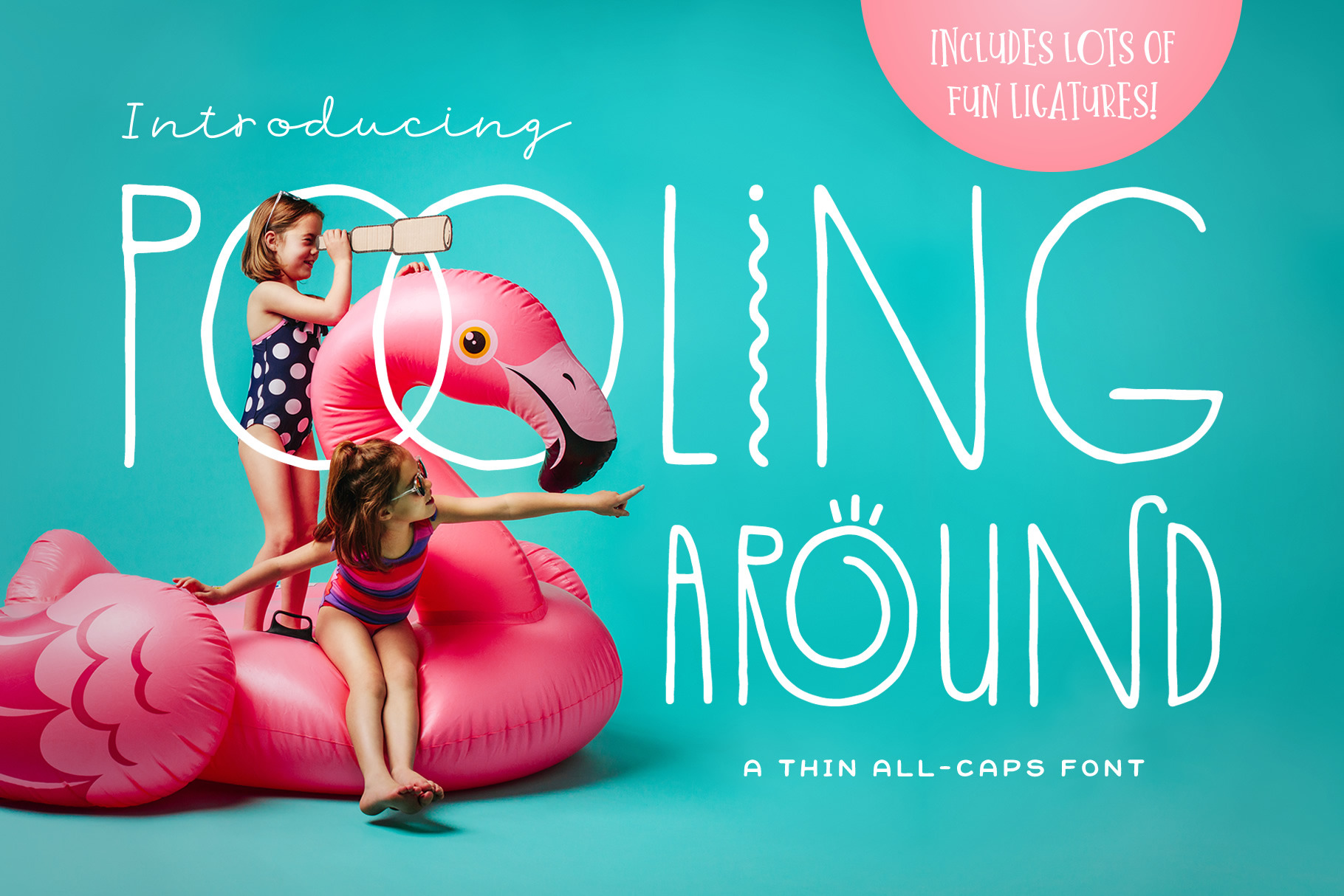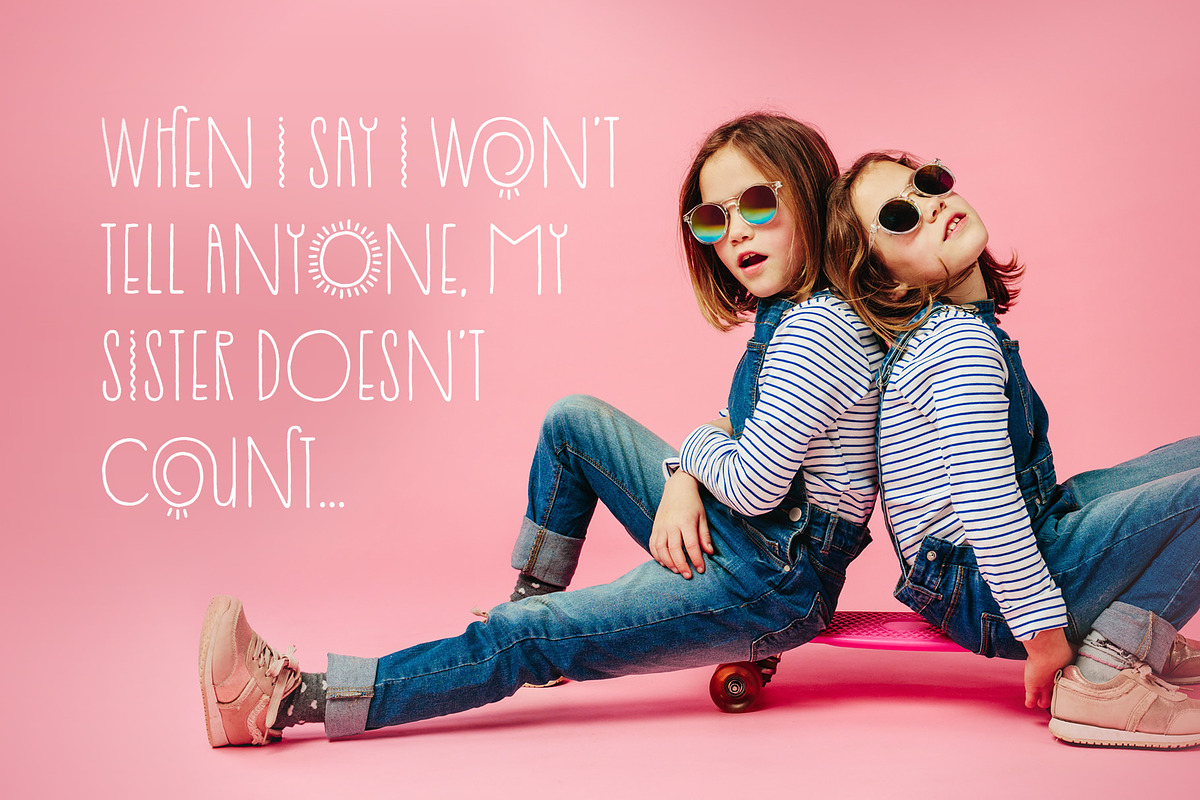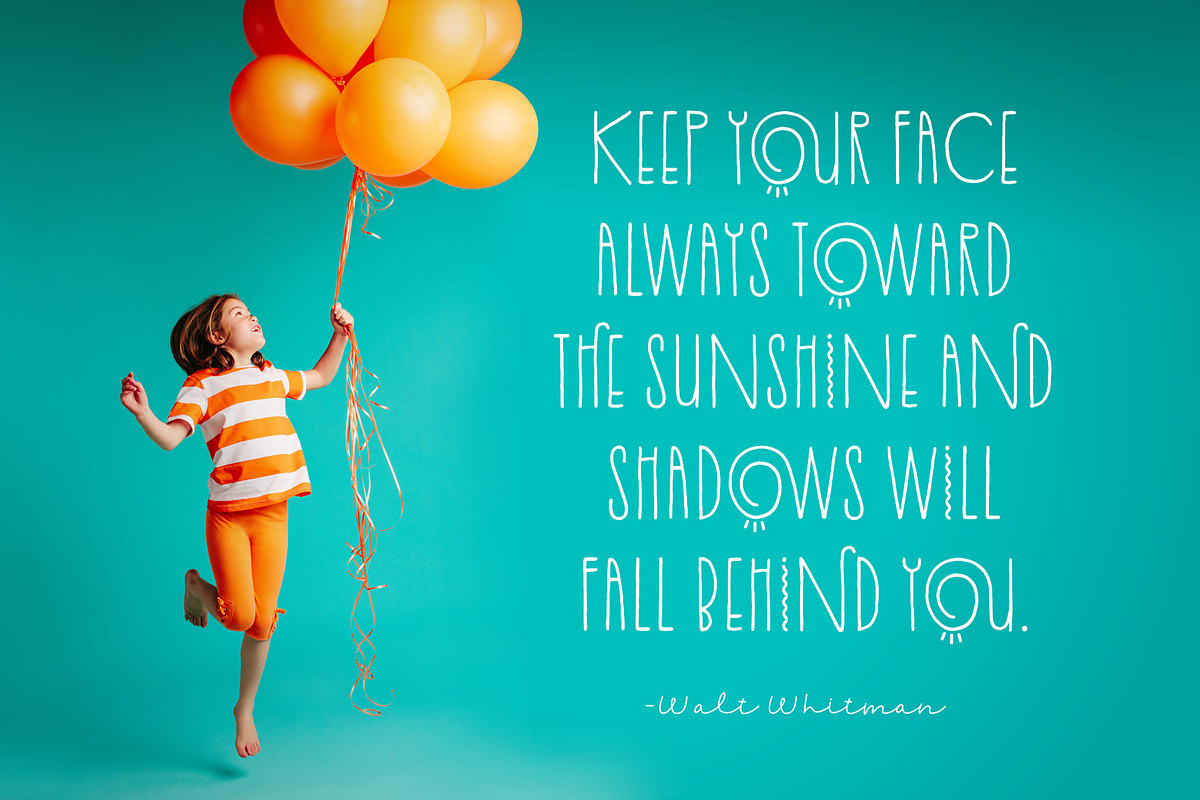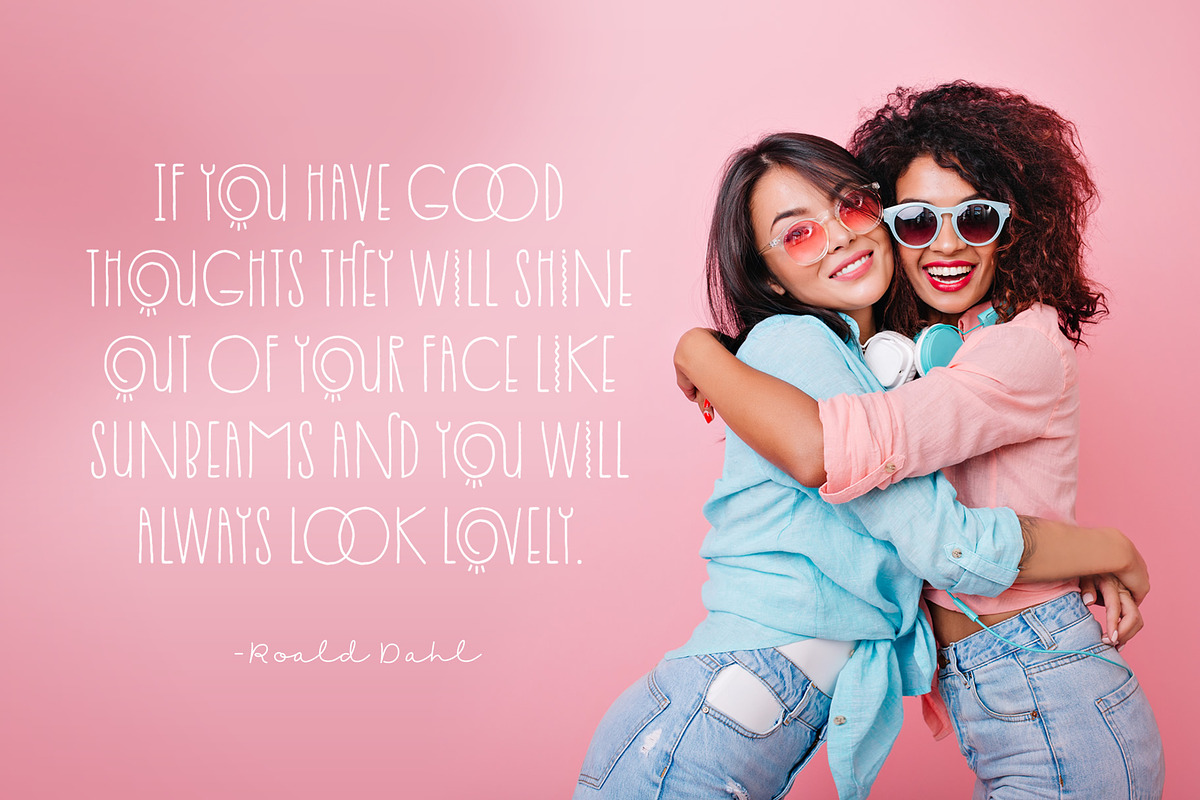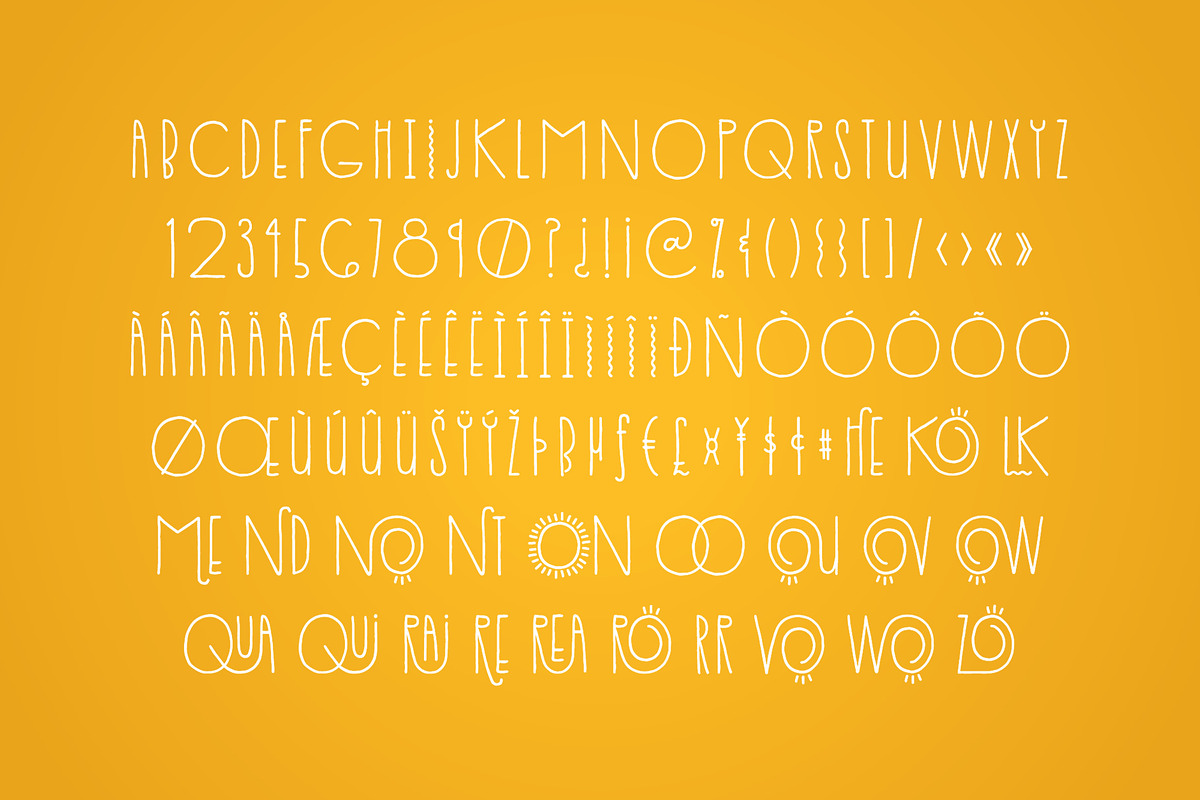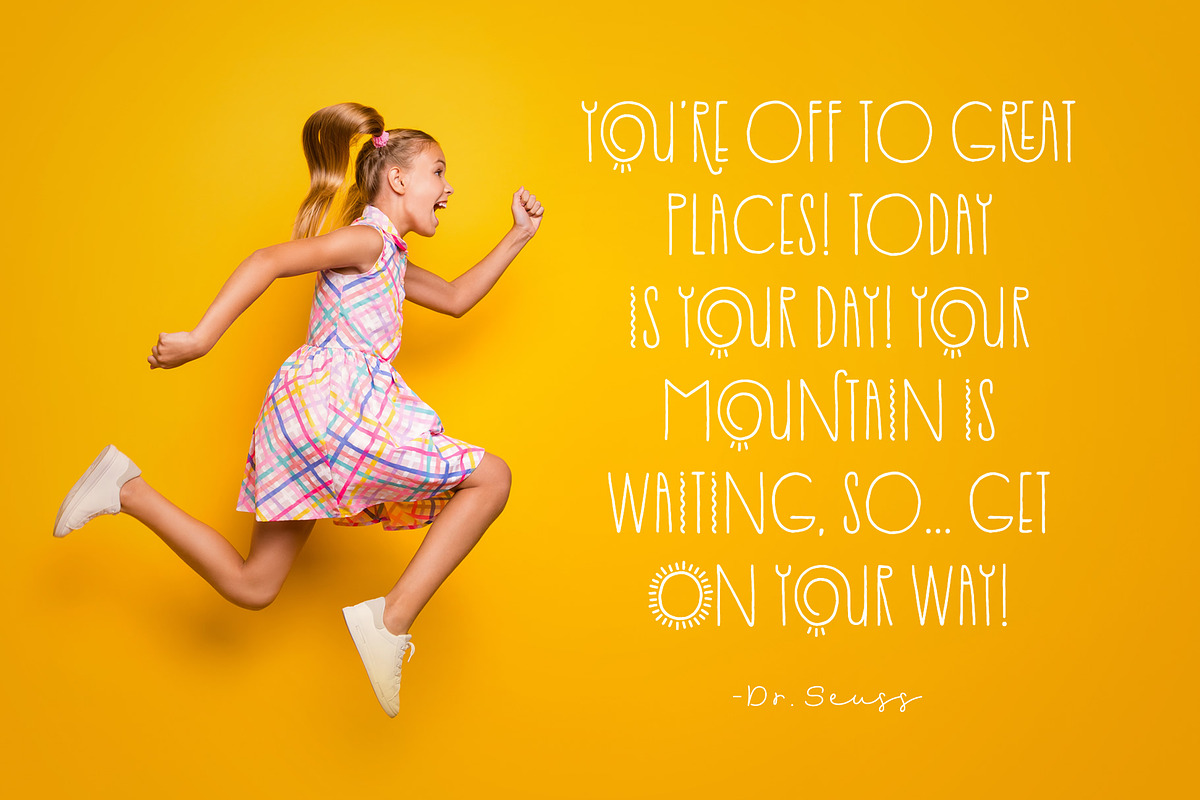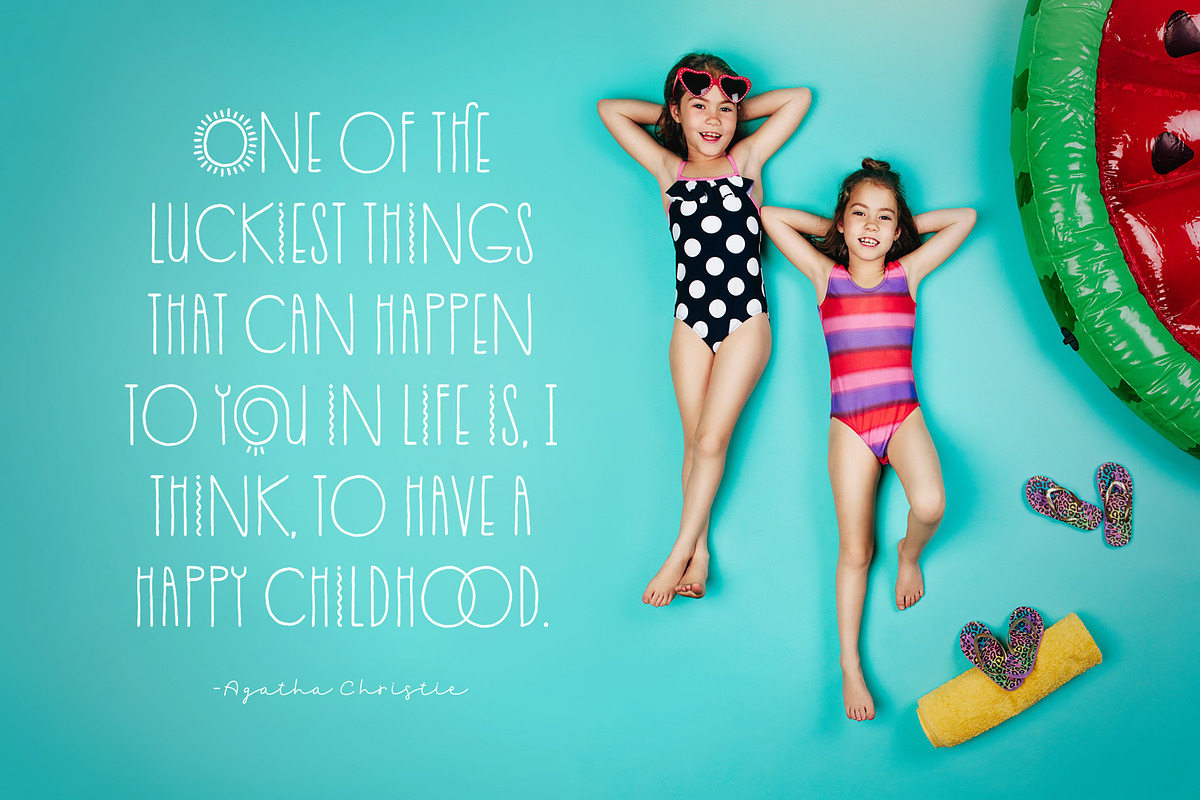
Pooling Around Font
Introducing: Pooling Around! A sweet, summery, sans serif font that includes a bunch of playful ligatures. Standard ligatures will appear automatically in programs that support OpenType and have the feature turned on. They can also be found through a glyphs panel.